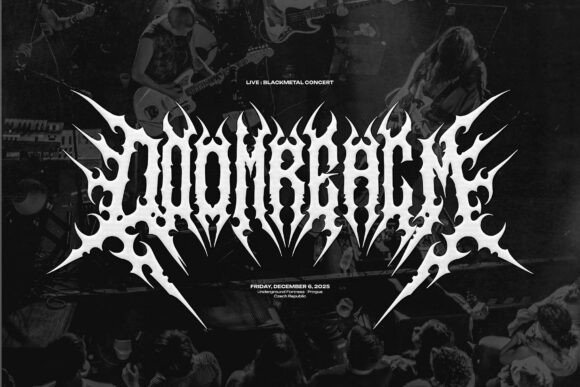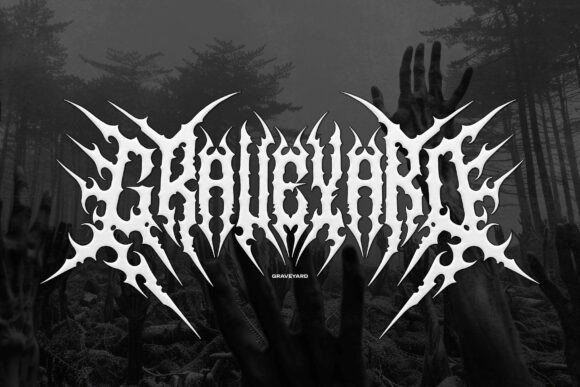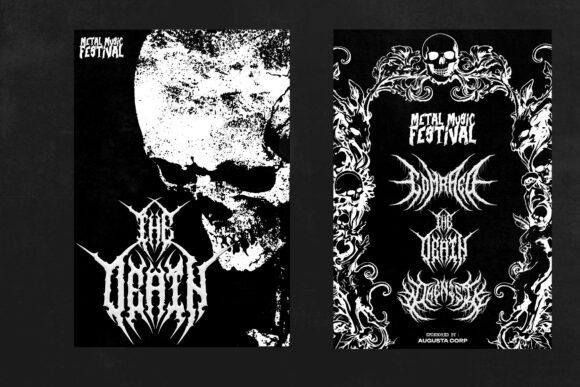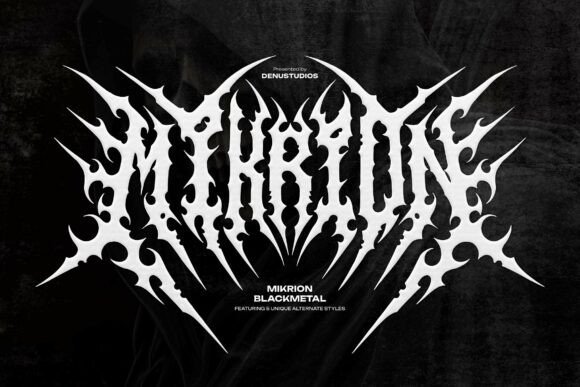
Introduction to Mikrion Font
Mikrion is a fierce and extreme black metal font designed to make a brutal visual impact.
With its razor-sharp spikes, jagged textures, and demonic flair, Mikrion perfectly captures the raw energy of underground metal scenes Ideal for band logos, album covers, merchandise, and horror-themed artwork, this font comes with 5 unique alternate styles to unleash your darkest creative visions.
Why Choose Mikrion Font?
Mikrion Font offers exceptional quality and versatility, making it a valuable addition to your design toolkit. Whether you’re creating for personal projects or commercial use, Mikrion Font delivers professional results.